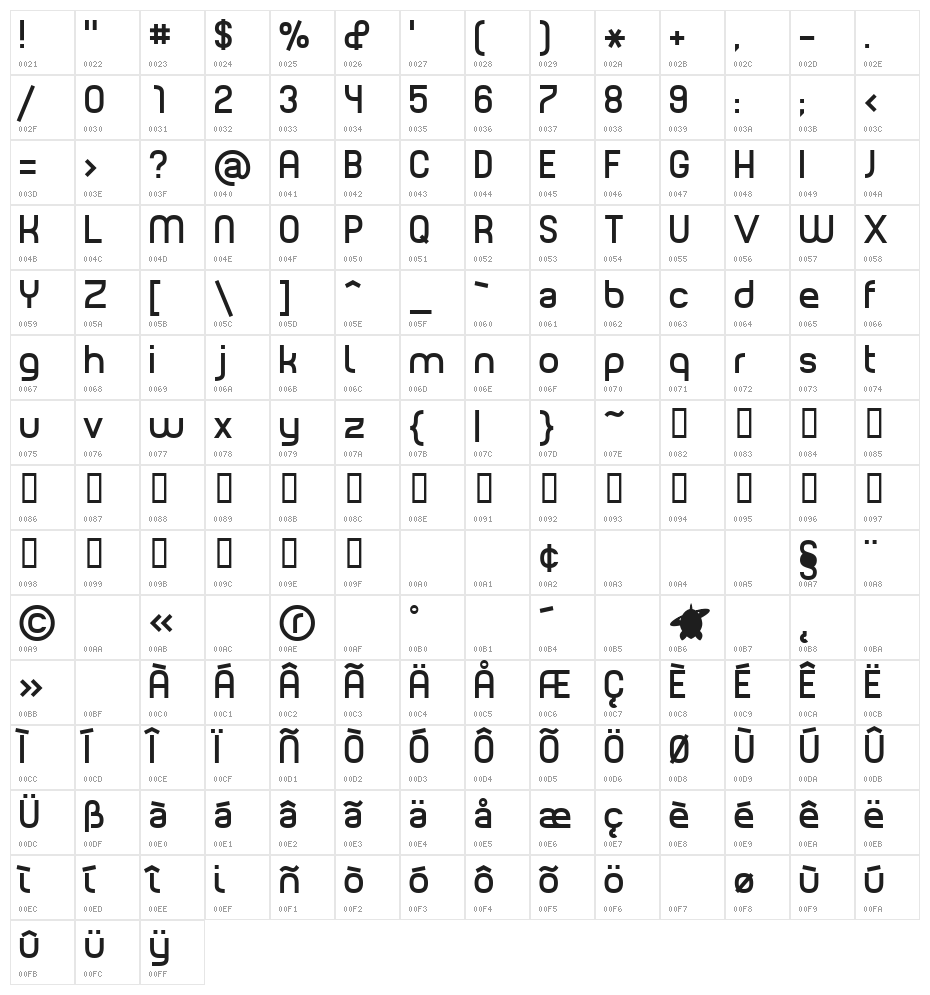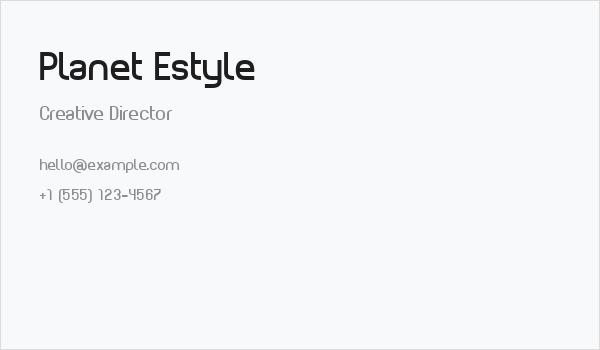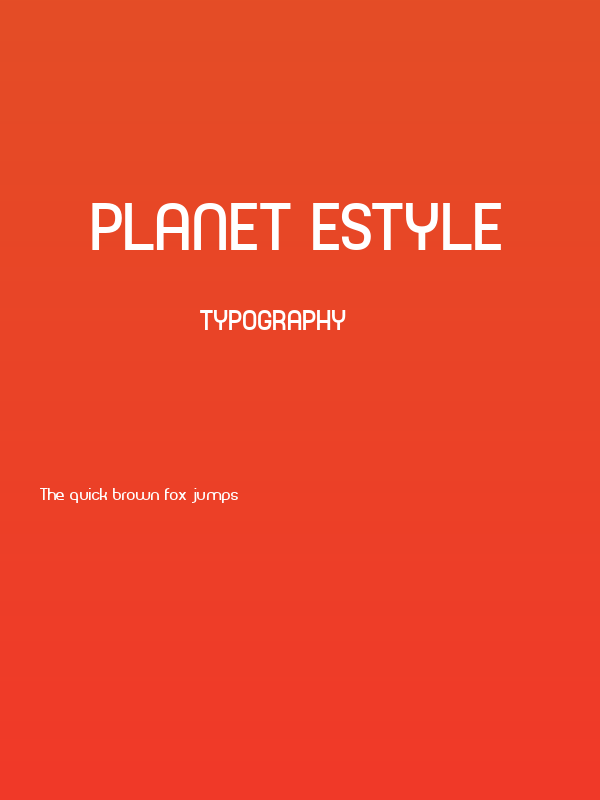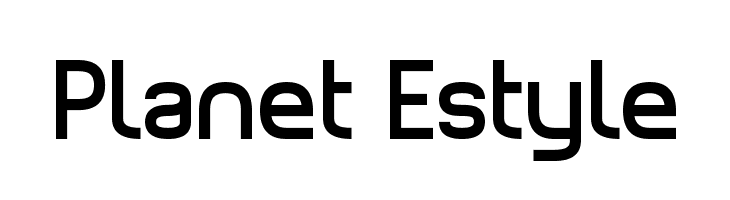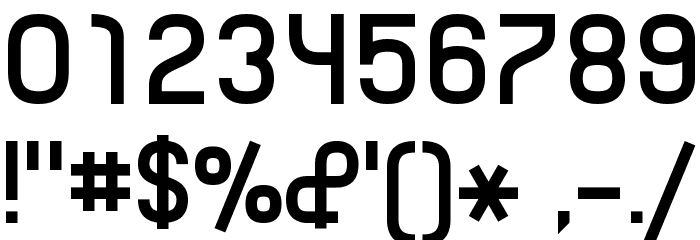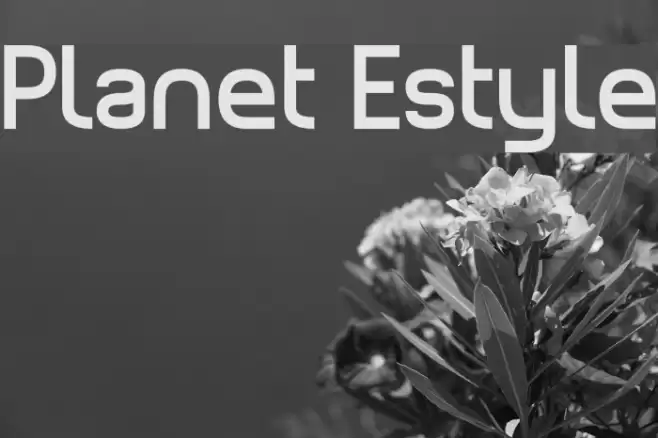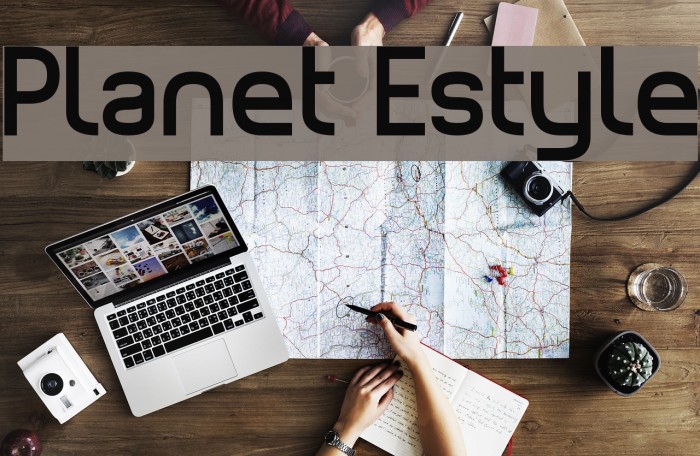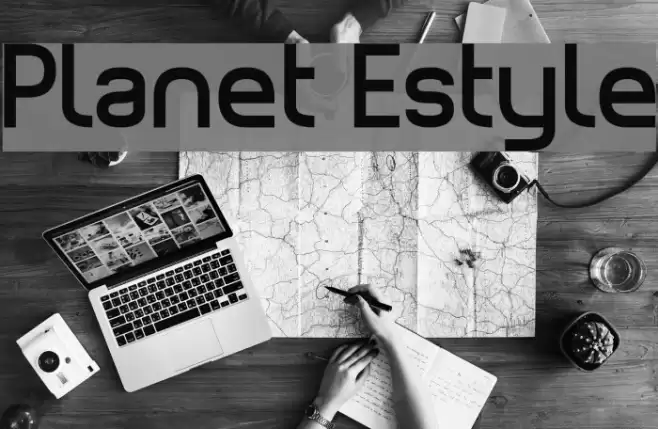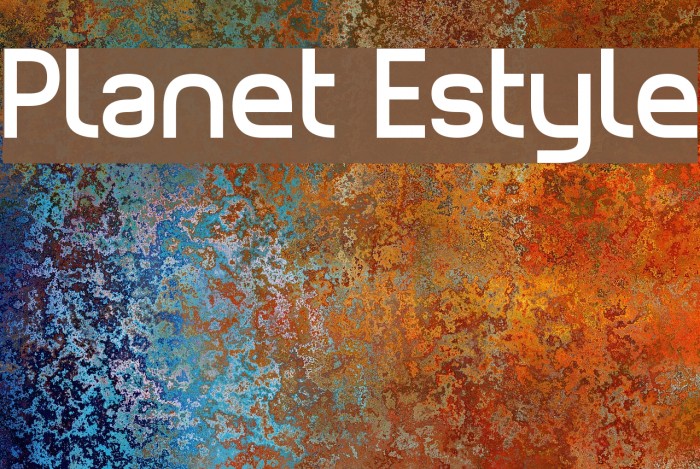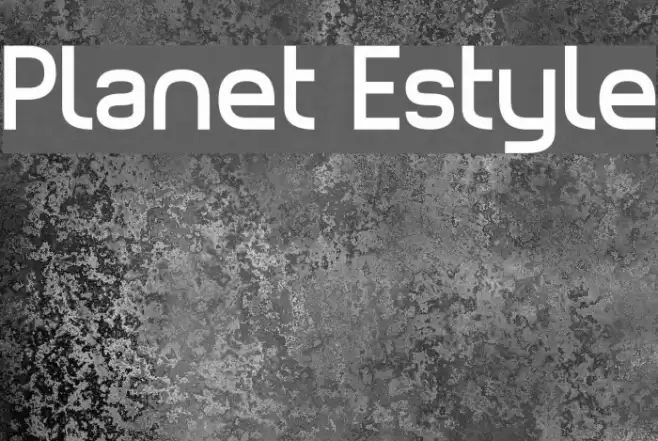
Planet Estyle Font
Planet Estyle Description
This font features a modern, geometric sans-serif style with clean lines and a uniform stroke width. The characters are rounded, giving a friendly and approachable appearance. The uppercase letters are slightly taller than the lowercase, maintaining a consistent height across the alphabet. The numerals are clear and distinct, ensuring readability. Special characters are well-integrated, matching the overall aesthetic. The font's simplicity and clarity make it versatile for various design applications.
| Use Case | Headlines, Body text, Logos |
| Proposed Projects | Ideal for branding, web design, advertising, and editorial layouts due to its clean and modern look. |